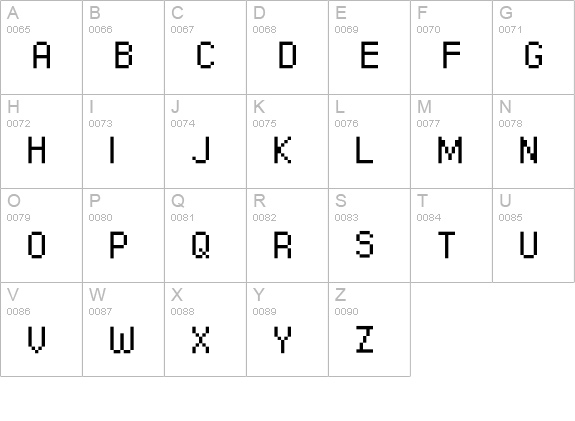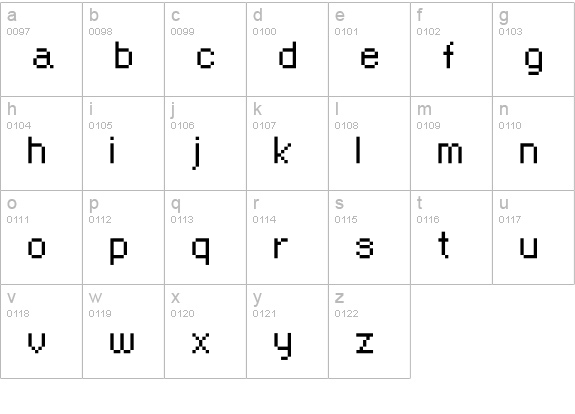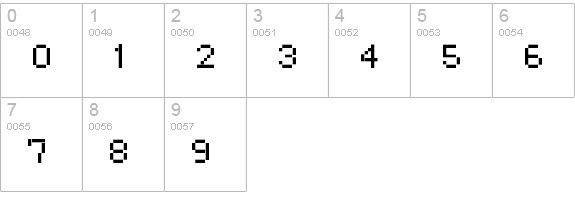
nontoxic_barun_2 Font Details
Introducing nontoxic_barun_2 font, a beautifully crafted typeface that exudes elegance and sophistication. This exquisite font is not only visually appealing but also environmentally friendly, as it is completely free of any toxic substances. With its clean lines and modern design, nontoxic_barun_2 font is perfect for a wide range of design projects, from branding to editorial layouts. Best of all, nontoxic_barun_2 font is freely available to download at FontsMarket.com. You can easily add this stunning font to your collection and use it in your creative endeavors without any cost. Don't miss out on the opportunity to enhance your designs with the nontoxic_barun_2 font – a truly versatile and non-toxic addition to any designer's toolkit.